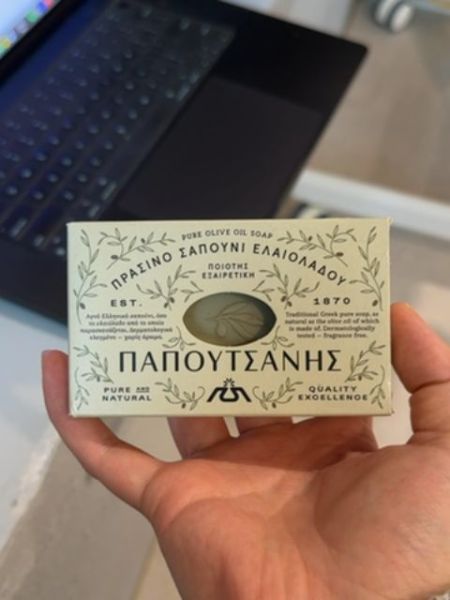
Papoutsanis Pure Olive Oil Soap
1870
Greece
The typography uses a bold, serif font for the brand name, which stands out in black against the beige background. Other text is in a classic serif typeface that conveys a traditional and trustworthy feel, complementing the product's longstanding history.
The packaging is a rectangular box made of cardboard with a light beige color. It features illustrations of olive branches, enhancing the natural theme of the product. A small oval cutout reveals the soap inside, adding a tactile element.
- Produced since 1870.